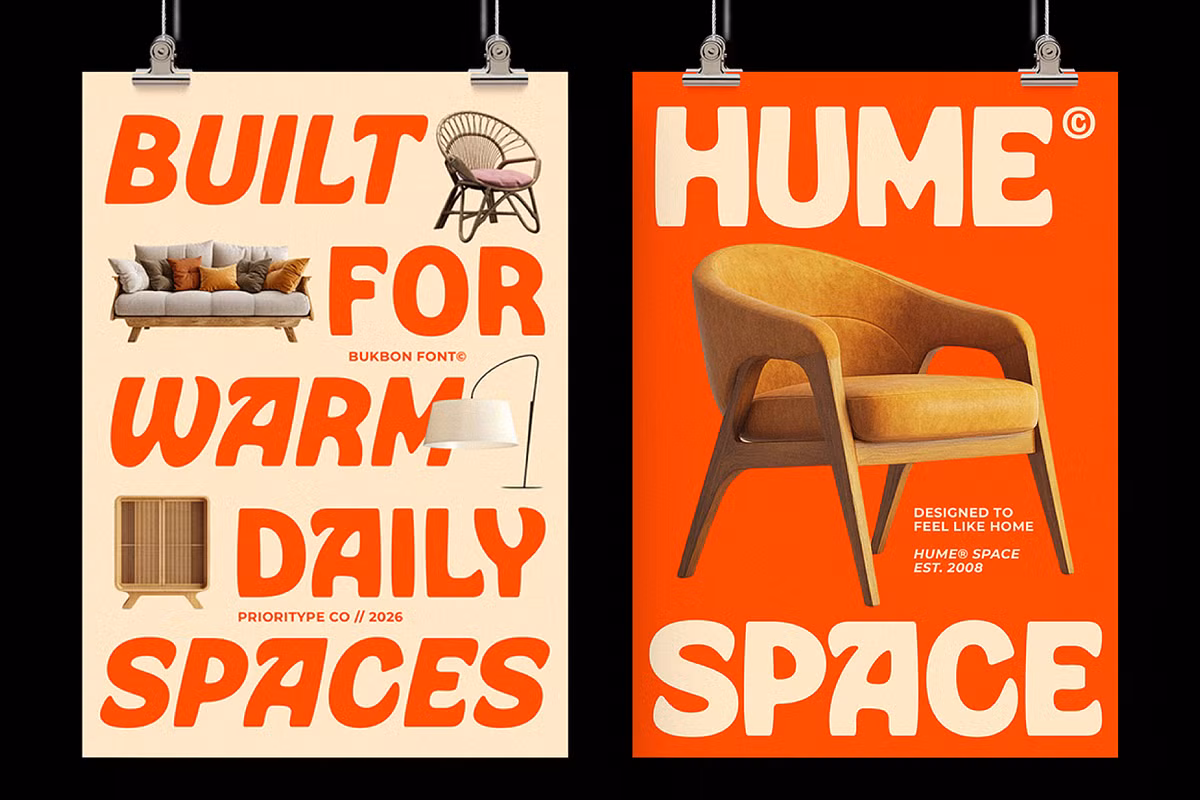
Bukbon: Playful Bold Display Font for Creative Branding and Design
Introducing Bukbon: A Playful Bold Display Font Bukbon is a display font. I like Bukbon because the letters are soft and rounded. Bukbon catches the eye. Feels warm and friendly. Bukbon works for projects. The thick strokes and smooth curves give Bukbon a look. Use Bukbon for branding, logos, packaging or social media graphics. Bukbon adds an easy style to the work.
Design Style of Bukbon
The design of Bukbon has an bold look. The rounded edges of each letter give Bukbon a look and the soft look makes Bukbon inviting and friendly. I think Bukbon works well to draw attention without overwhelming the viewer. The thick strokes of Bukbon give Bukbon a presence and the strong presence makes your message clear and effective.
Bukbon is playful. That playful nature lets Bukbon fit easily into the contexts. If you are designing a poster you can use Bukbon. If you are designing a logo you can use Bukbon well. I have used Bukbon in my projects. Seen how the flexibility of Bukbon lets Bukbon adapt to the different branding needs while the unique charm of Bukbon stays the same.
Character Sets and Features
Bukbon has a character set. The character set includes letters, lowercase letters, numbers and punctuation marks. I like that the character set gives me options when I design text. Bukbon lets me use the character set to make text expressions.
One thing that I notice about Bukbon is that Bukbon can show feeling, with the type. The happy feel of Bukbon makes Bukbon a good choice for any project that’s for kids or for family brands. I like that. When I use Bukbon I see that the different letter shapes of Bukbon work, in logos and headlines and the shapes help get attention.
Use Cases for Bukbon
Bukbon is a font. I have used Bukbon in the projects I work on. You can see Bukbon work well in a lot of places. Below are the ways you can use Bukbon:
- Branding: I use Bukbon to make a logo that people can easily remember. The logo shows an approachable brand identity. Bukbon helps with the branding and, with the brand identity.
- Packaging: The font adds a fun feel, to the packaging. The font is especially good for packaging of children’s products or items, for an audience. The font makes the packaging look lively for kids.
- Posters: I make posters that catch the eye. Posters work for events or promotions that need a message and a friendly style.
- Children’s Projects: Children’s Projects work well for the materials. Children’s Projects work for the children’s books. Children’s Projects work for any project that needs a tone.
- Social Media Designs: I use Bukbon. Social Media Designs need graphics and posts that get attention in the feeds.
Pairing Suggestions for Bukbon
I have found that when you think about the typography pairing fonts well is important, for making the designs that work together. I have seen that Bukbon pairs, with both the serif fonts and the sans-serif fonts and Bukbon lets you keep the tone while Bukbon improves the readability. Here are a few pairing suggestions:
- Bukbon + Montserrat: The simple shapes of Montserrat complement the edges of Bukbon. The pairing of Montserrat and Bukbon creates a look.
- Bukbon + Playfair Display: I notice the look of Bukbon next, to the elegant serif look of Playfair Display. The contrast, between Bukbon and Playfair Display makes a balance.
- Bukbon + Open Sans: The Bukbon + Open Sans combination keeps a look. The Bukbon + Open Sans combination works well for digital and print.
I try pairings. I find the perfect combination. The perfect combination lifts the design. The design stays playful. The design stays engaging.